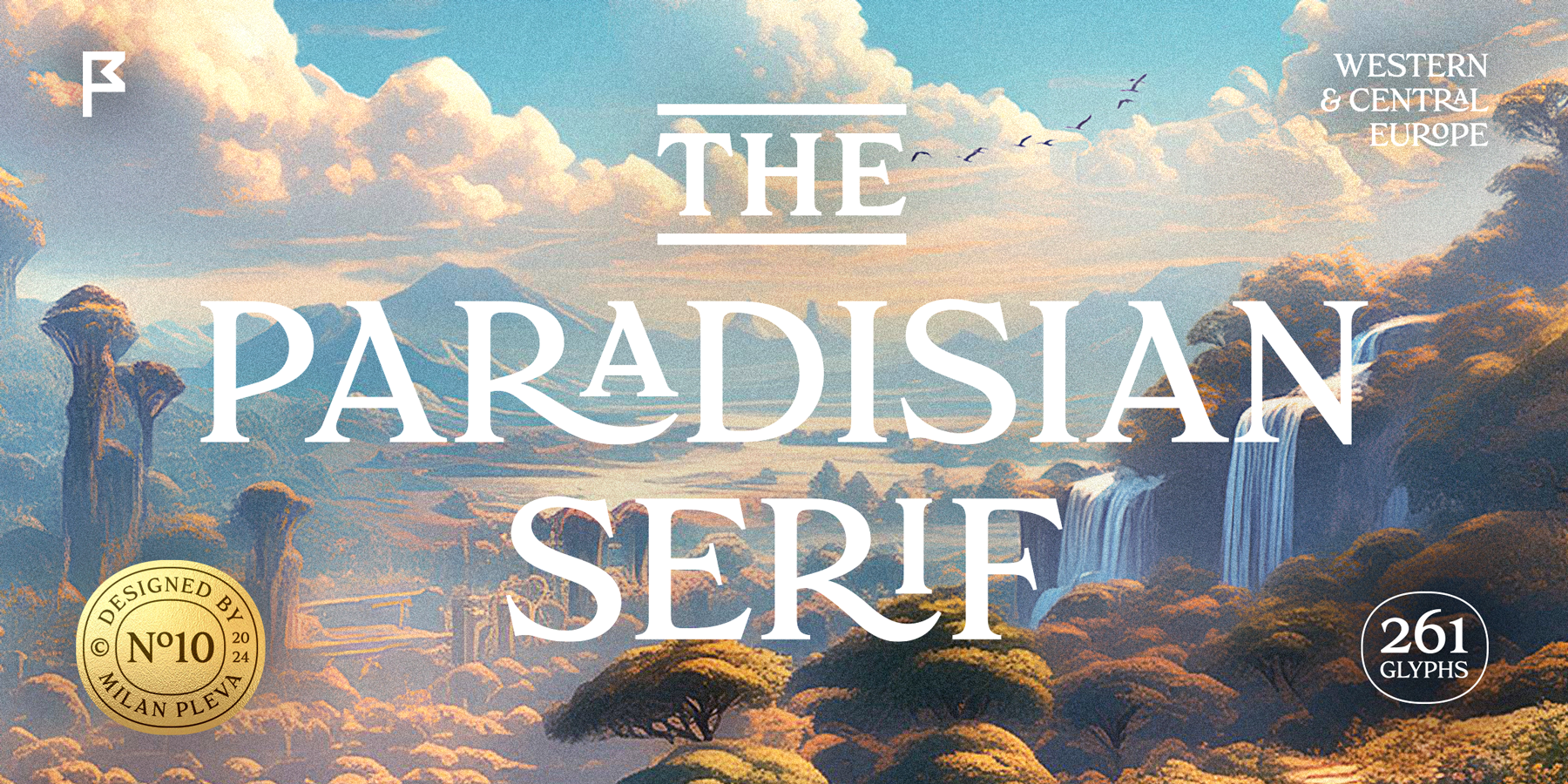
The Paradisian Serif Font is an excellent choice for designs that aim for a sophisticated, elegant, and distinctly luxurious aesthetic, reminiscent of a serene paradise. Imagine it gracefully adorning the branding of a high-end resort, adding an exclusive charm to bespoke product packaging, or lending an exquisite feel to fashion editorials. It's also perfectly suited for formal invitations, literary book covers, refined editorial layouts, and any project where you want to convey a sense of refinement, timeless beauty, and an aspirational quality. Its elegant serifs, balanced letterforms, and distinctive character make it ideal for conveying grace and a unique, artistic flair.
What makes the Paradisian Serif Font so exciting is its ability to instantly infuse a design with a feeling of tranquility and high-end appeal. It often features delicate details and harmonious proportions that make it both visually compelling and highly readable. This font has a luxurious and inviting personality that can instantly elevate your design, making it feel both intimate and supremely stylish. It's designed to capture attention with its distinctive elegance, ensuring your message is not just seen, but appreciated for its refined artistry.
The Paradisian Serif Font family typically includes a range of weights, from a delicate light for subtle accents to a robust bold for impactful statements, often accompanied by elegant italic versions. This comprehensive range provides designers with ample flexibility to create nuanced visual hierarchies and add sophisticated contrast within their typography. With its broad character set, it supports multiple languages, further expanding its global applicability for various luxury and design projects. Explore the refined elegance of Paradisian Serif Font Free Download for your next prestigious endeavor.